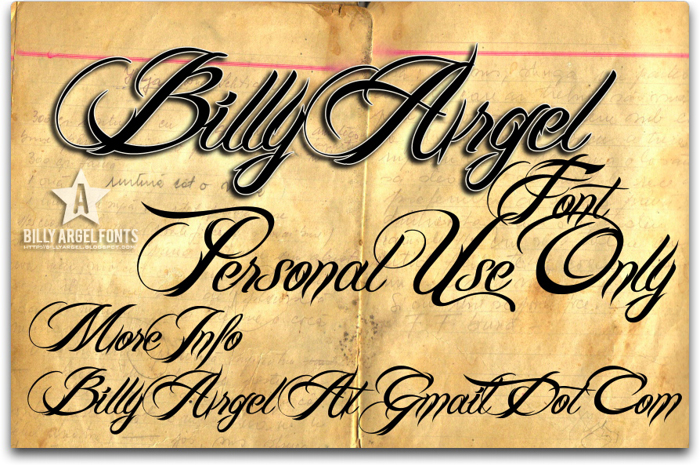
Billy Argel Font
BILLY ARGEL FONT
Billy Argel Font by Billy Argel fonts.
another sick design dude
like the font, hate that there are no numbers.
One Of The Best I have Found...
Love the font hate people who are never pleased. it's free bitches! thank You Billy Argel
lookin really kool ima try to do sumfn like this
this fonts good <3
cool font i luv it <3
niCE - 1 ^.^
great font!
awesome font used it on my friends tattoo he loved it thank you
Awesome!! I love this font. Fancy but with a bit of horror
Awesome
AWESOME!!!
Heavenly!
so cool
Freakin' ICONic. 😄
LOve this xxx<3 😄
Hello Billy I love this font , Could I pay u to adjust it a lil ? For the word Christyle. I love it . It beats everything else . I would just like the C's flair not to be so long at the top and for the L to be cursive L with a loop or something. Ide like it to stand away from the Y. I feel its hard to distinguish the L. Thanks My number is 6982256388. my email is Doitchristyle@gmail.com
SOOO coool
@hleena i know right
i totally get what you are say a little of dark with a spalsh of sweet
***** bravo*****
Sweet
Classic but beautiful
Oh woah ! This font is really beautiful yes.
Nice work !
love it
Nice font, love it
LOVE IT!